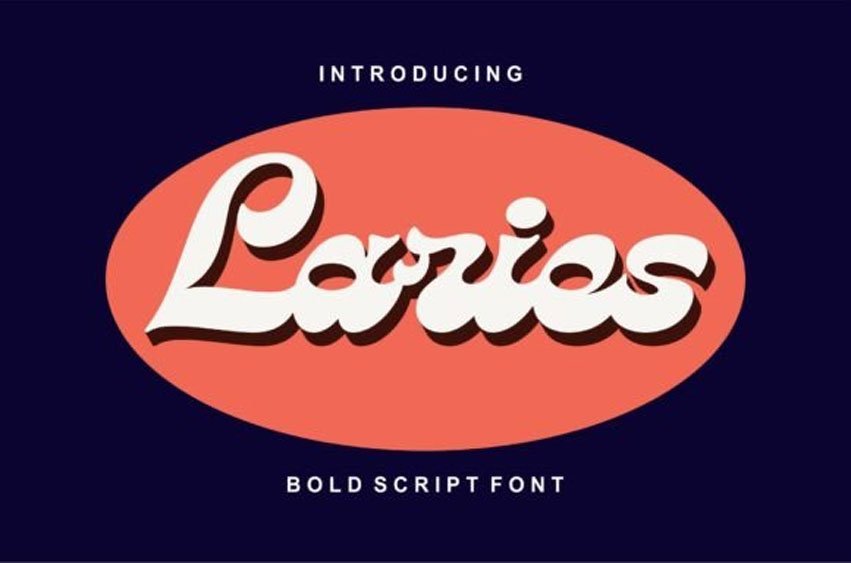
Laries Font
Laries Font BOLD SCRIPT FONT. This script font comes with a retro, modern and vintage touch to it. Inspired by dynamic culture, sign and badge designs. This font is great for your creative projects such as logos, posters. invitation cards, packaging, badges, types of logos, clothing designs, labels, and others.
Laries comes with uppercase, lowercase, numbers, punctuation, multilingual support.